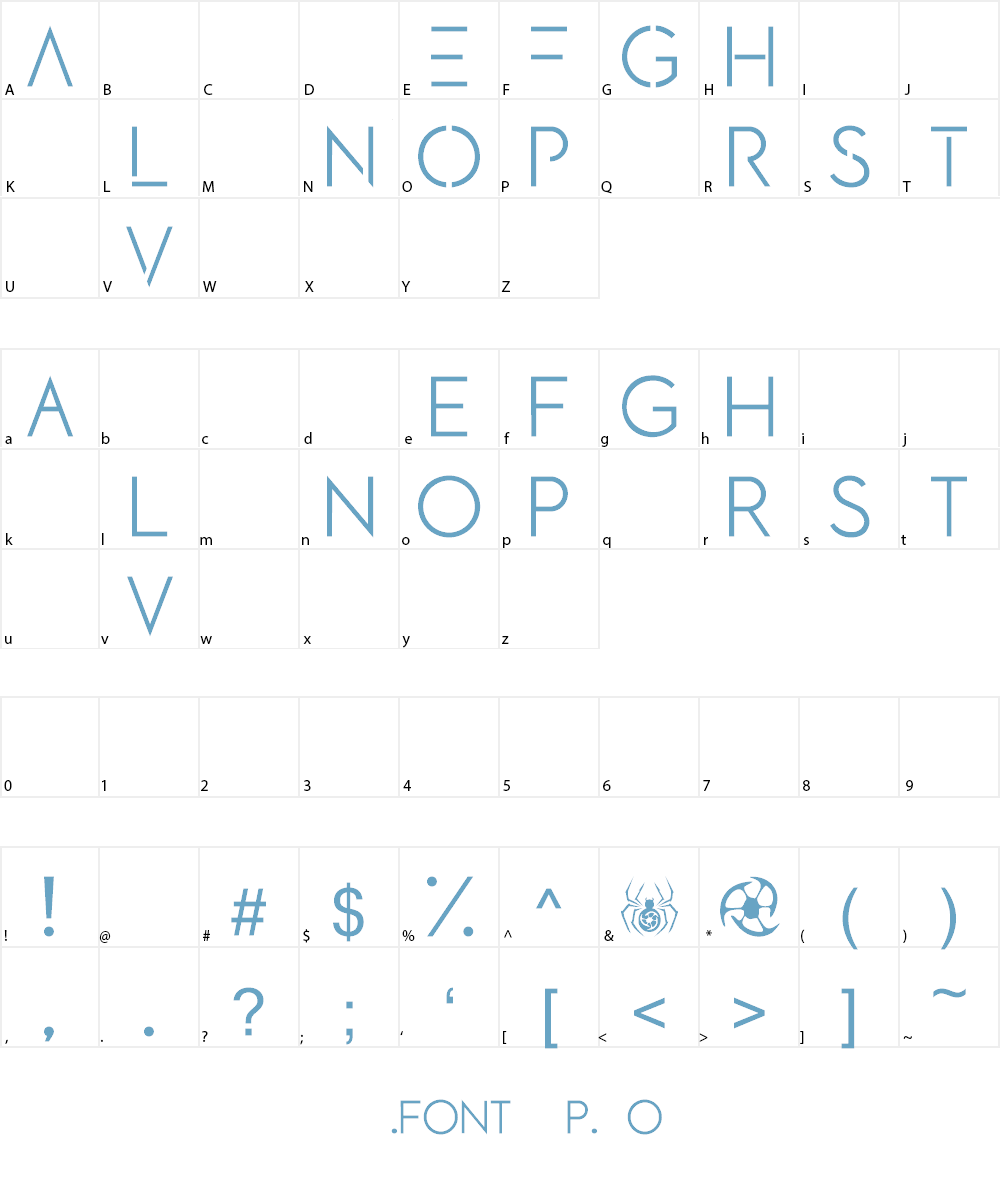
This fan-font has been inspired by the recent movie about two travellers aboard a colony spaceship that malfunctions who are awoken from hibernation early and fall in love. Capital letters have similar broken circulation middles, gapped corners and missing horizontal connections. NOTE: This DEMO version strictly for personal use only and contains 13 upper and lower case letters.